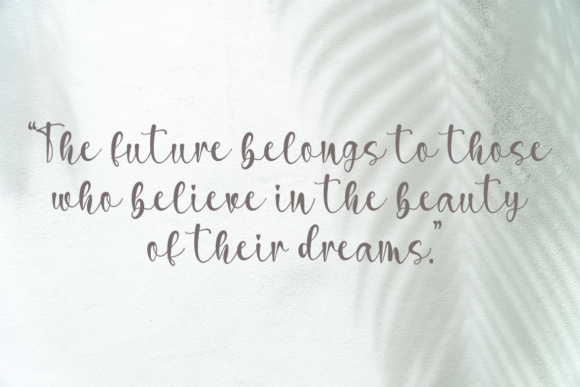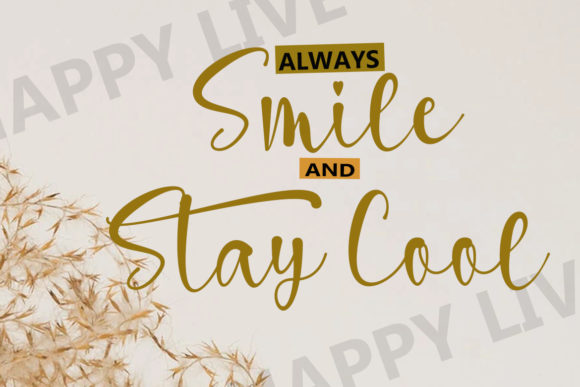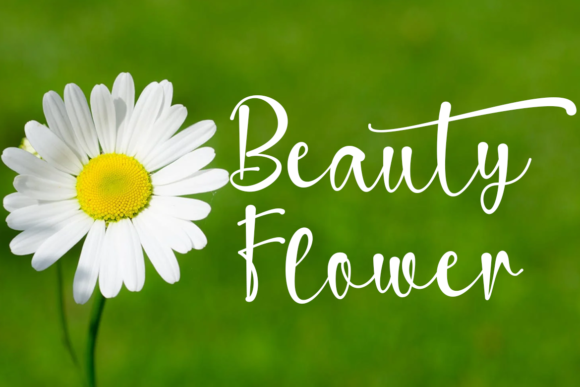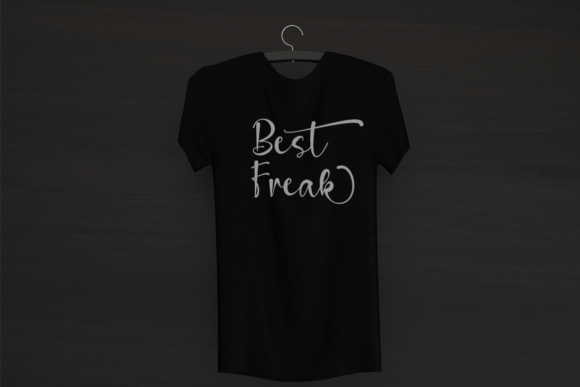
Introduction to Sainthick Font
Have you ever been stuck on a creative project, searching for that perfect font to bring your design to life? I know I have. There’s nothing quite like the feeling of stumbling upon a font that speaks to you, and for me, that font is the Sainthick Font. Its elegant touch and timeless style are a breath of fresh air in the world of typography.
As a designer, I can attest to the value of having a reliable design resource like the Sainthick Font. With its flowing handwritten style, it’s perfect for creating high-quality designs that demand attention. Whether you’re working on a free download project or a paid commission, this font is sure to elevate your work to the next level. Plus, its transparent background makes it easy to work with, allowing you to focus on the creative process rather than the technical details.
Key Features of Sainthick Font
- Sainthick Font is designed to be highly versatile, with a large character set and advanced typographic features.
- One of the unique characteristics of Sainthick Font is its unique blend of modern and vintage elements, making it perfect for creative projects that require a touch of sophistication and elegance.
Honest Review: Sainthick Font
As a designer, I’m always on the lookout for high-quality design resources to elevate my creative projects. The Sainthick Font caught my attention, and I was excited to dive in and see what it had to offer.
One of the first things I noticed about the Sainthick Font is its clean and modern aesthetic. The font is incredibly versatile, making it a great choice for a wide range of projects. Whether you’re working on a logo, brochure, or website, the Sainthick Font is sure to deliver.
Here are some of the things that I like about the Sainthick Font:
- ✨ High-quality design: The Sainthick Font is a beautifully crafted typeface that is sure to elevate any project.
- ✨ Versatile: The font is suitable for a wide range of applications, from print to digital.
- ⚠️ Limited font styles: While the Sainthick Font is a great choice for many projects, it may not be suitable for those requiring a wide range of font styles.
Overall, I was impressed with the Sainthick Font. While it may have some limitations, its high-quality design and versatility make it a great choice for designers looking to elevate their creative projects. If you’re looking for a reliable design resource, I would definitely recommend checking out the Sainthick Font.
The Sainthick Font is commonly used in:
- Posters and advertisements
- Wedding invitations and party decorations